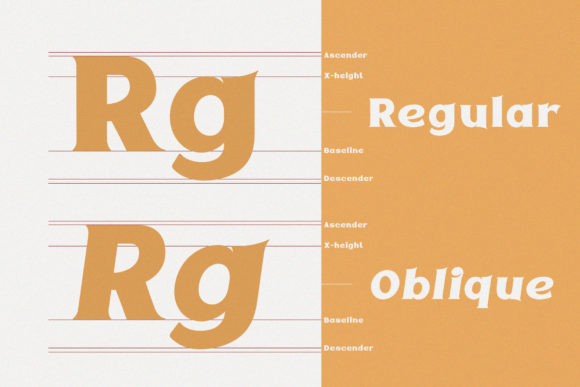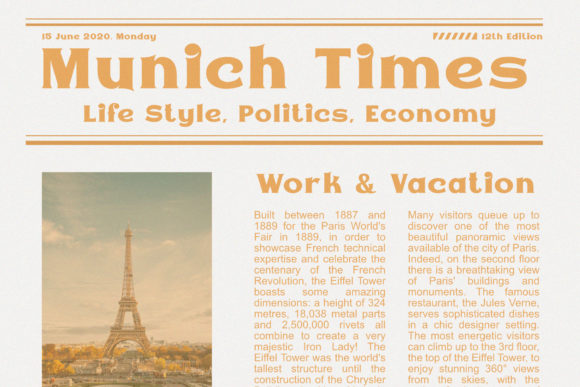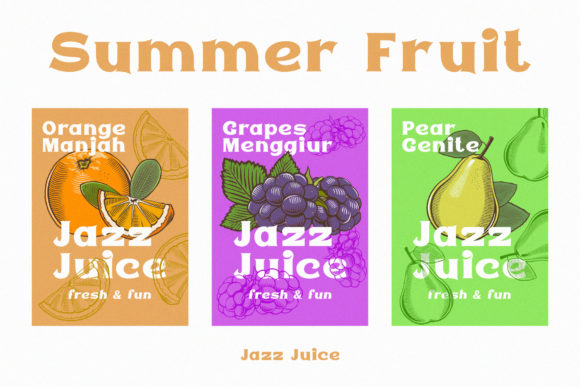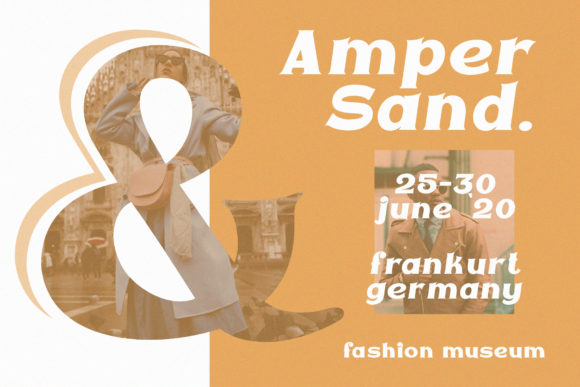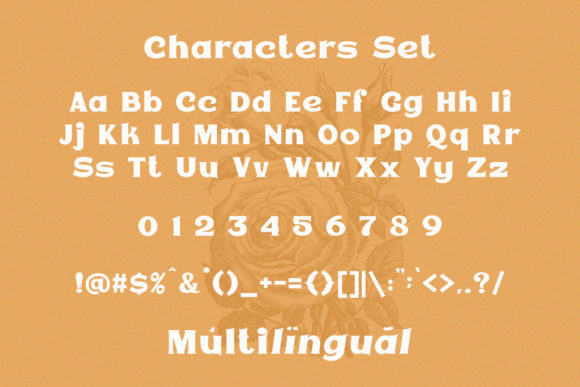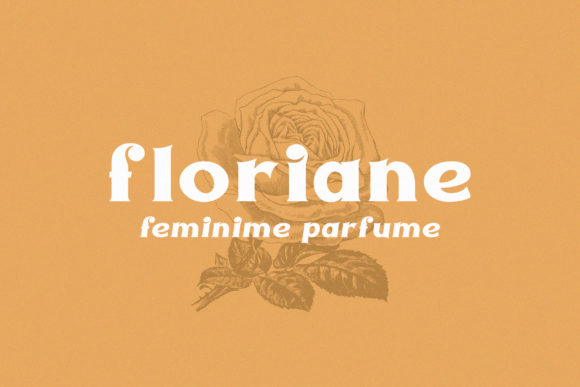
Epicgant Font: Elevate Your Designs with Elegance and Versatility
In the world of typography, fonts play a crucial role in conveying the tone and personality of a design. For designers and crafters looking for a font that exudes elegance, strength, and a touch of casual charm, Epicgant Font is an exceptional choice. This beautiful display font is designed to make a statement, offering a unique blend of sophistication and readability that sets it apart from other fonts.
The Characteristics of Epicgant Font
Epicgant Font is characterized by its elegant and strong feel, making it perfect for designs that require a sense of luxury and grandeur. Despite its bold appearance, Epicgant possesses a casual charm that gives it a down-to-earth quality, making it incredibly versatile for various design applications. Whether you’re working on a high-end branding project, a creative craft, or a digital display, Epicgant’s unique blend of elegance and approachability ensures it will shine.
One of the standout features of Epicgant Font is its versatility. This font is designed to perform exceptionally well in any context, from busy backgrounds to standalone headlines. Its readability is a key factor in its versatility, allowing it to be used in a wide range of design projects without losing its impact. Whether you’re creating a bold statement piece or a subtle design element, Epicgant adapts seamlessly, ensuring your message is conveyed with style and clarity.
Applications of Epicgant Font
Epicgant Font’s adaptability makes it suitable for a myriad of design applications. Here are a few ways designers and crafters can utilize this stunning font:
- Branding and Logotypes: Use Epicgant to create a memorable brand identity that exudes elegance and professionalism.
- Posters and Flyers: Make a bold statement with Epicgant as the headline font for posters and flyers, drawing attention and conveying your message effectively.
- Digital Displays: Epicgant’s readability and strong presence make it ideal for digital displays, including website headers, social media graphics, and advertising banners.
- Crafting and DIY Projects: Add a touch of sophistication to your crafting and DIY projects, such as handmade cards, invitations, and packaging.
Why Choose Epicgant Font?
Choosing Epicgant Font for your design projects comes with numerous benefits:
- Elegance: Epicgant brings an air of elegance to any design, elevating it from ordinary to extraordinary.
- Versatility: Its adaptability ensures it can be used across various design applications and backgrounds.
- Readability: Despite its bold and elegant appearance, Epicgant remains highly readable, making it perfect for conveying messages clearly.
- Uniqueness: Epicgant’s distinctive style sets it apart from more common fonts, allowing designers to create unique and memorable designs.
| Font Name | Epicgant Font |
Epicgant Font is a remarkable addition to any designer’s or crafter’s toolkit. Its elegant and strong feel, combined with its casual charm and versatility, makes it an ideal choice for a wide range of design projects. Whether you’re looking to make a bold statement or add a touch of sophistication to your work, Epicgant Font is sure to exceed your expectations. With its exceptional readability and adaptability, Epicgant is poised to become your go-to font for creating stunning, impactful designs.